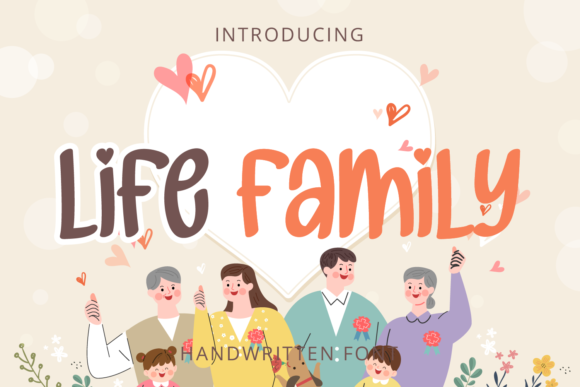
Unleash the undeniable charm of Life Family Font, a captivating script font that weaves a whimsical tale across your designs. This exquisite creation by Planetz Studio dances effortlessly along the baseline, infusing every project with a touch of elegance and flair.
Escape the mundane and embrace the extraordinary with Life Family Font. Its name alone evokes a sense of vibrancy and authenticity, inviting you to infuse your designs with captivating expressions. Experience the thrill of creating logos that ooze personality, branding that commands attention, and social media graphics that ignite engagement.
Life Family Font is a master of versatility, seamlessly adapting to a myriad of creative endeavors. Its graceful curves lend an air of sophistication to wedding invitations, while its playful spirit enchants children's books and whimsical designs. Let your imagination soar as you explore the endless possibilities that await with this remarkable font.
Indulge in a world where your designs come alive with the magic of Life Family Font. Its enchanting characters possess an innate ability to stir emotions, captivating audiences with their undeniable charm. Whether you seek to express joy, spark wonder, or evoke a sense of timeless allure, this font empowers you to paint a vibrant tapestry of emotions.
Join the chorus of satisfied creatives who have discovered the transformative power of Life Family Font. Experience firsthand how its exquisite beauty and versatility can elevate your designs to new heights. Embrace the opportunity to create masterpieces that resonate with your audience, leaving an enduring legacy of captivating expressions.